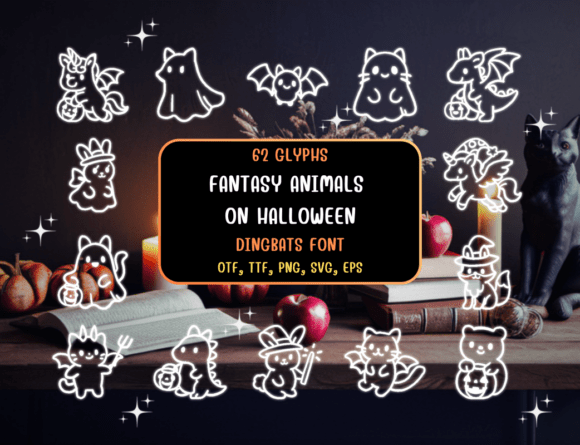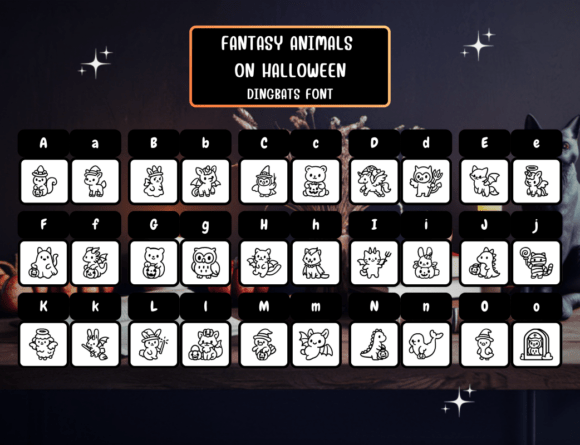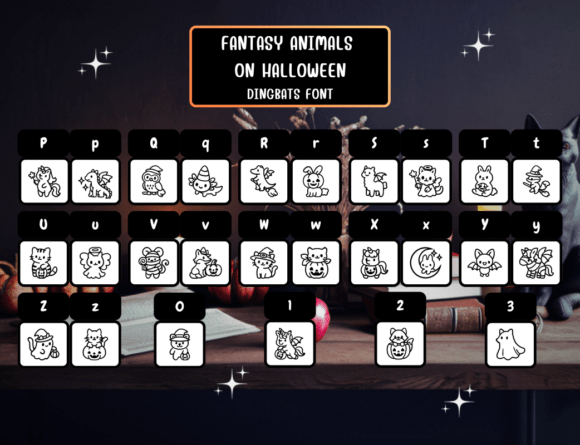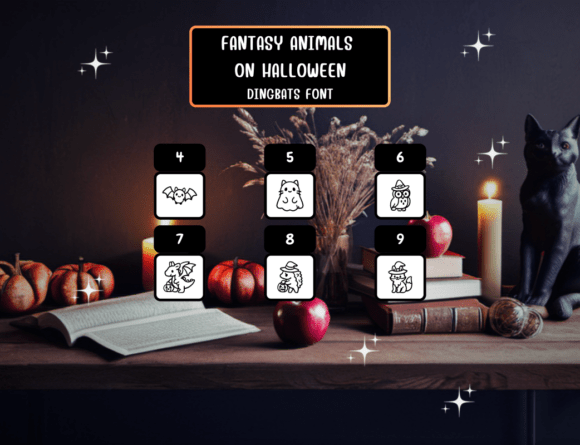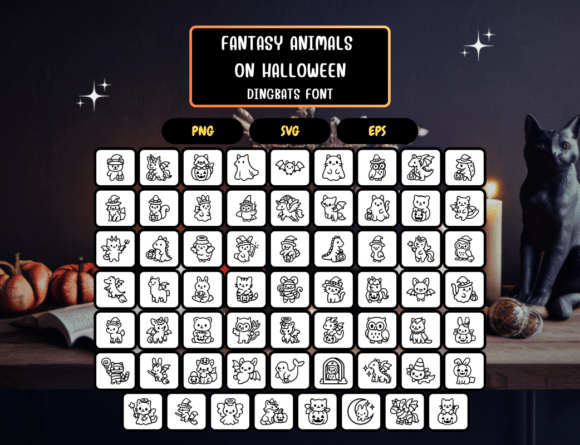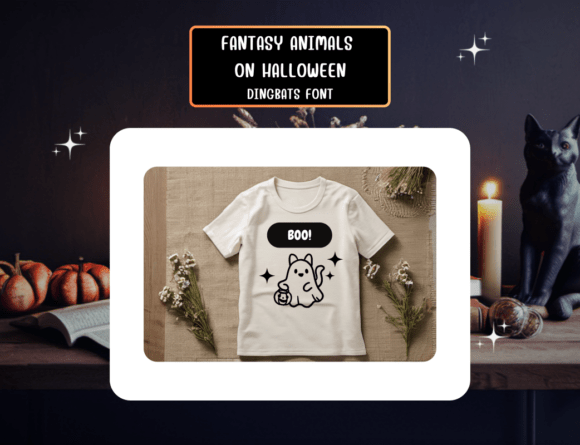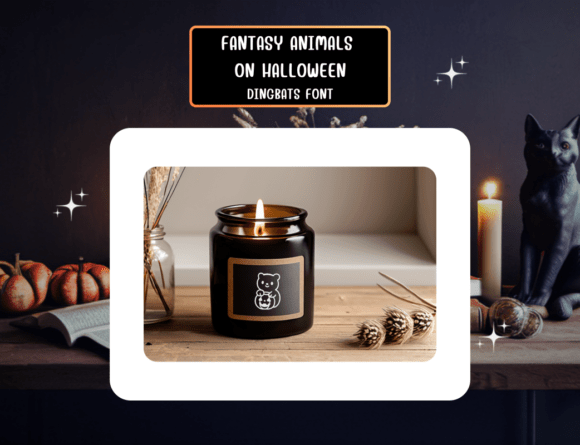
Getting Creative on a Spooky Night
Do you ever find yourself stuck in a creative rut, searching for that perfect spark to get your imagination running wild? For me, it’s often on a crisp autumn evening, surrounded by twinkling lights and the faint scent of pumpkin spice. It’s the perfect time to let my creativity run free, and that’s exactly when I stumbled upon the enchanting Fantasy Animals on Halloween Font.
This charming Dingbats font is more than just a novelty – it’s a treasure trove of hand-drawn illustrations waiting to be unleashed on your next creative project. From labels to packaging, stickers to greeting cards, this font is the perfect companion for designers looking to add a touch of whimsy and wonder to their work.
Fantasy Animals on Halloween Font Key Features
- Unique Characteristics: Includes 30 fantasy animal designs, 5 spooky Halloween-themed backgrounds, and 10 creepy Halloween-themed ornaments
- Font Style: Hand-drawn, whimsical, and playful, perfect for Halloween-themed designs, invitations, and decorations
- Characters and Glyphs: Includes uppercase and lowercase letters, numbers, punctuation, and special characters, as well as the fantasy animal designs and Halloween-themed elements
Designer Review: Fantasy Animals on Halloween Font
At first glance, the Fantasy Animals on Halloween Font caught my eye with its playful and whimsical feel. ✨ The use of bold lines, intricate details, and varied animal designs create a sense of magic and wonder. The font’s application in holiday-related content would be perfect, from invitations to decorations.
However, upon closer inspection, I noticed a few areas for improvement. ⚠️ The font’s consistency across different character sets is inconsistent, with some letters appearing more polished than others. Additionally, the font’s file size is relatively large, which could be a concern for designers working with limited resources.
The font’s character set is also limited, with a lack of special characters and punctuation marks. This could be a hindrance for designers who require a more comprehensive character set. A few additional weights and styles would also be beneficial for added flexibility.
- Works well for holiday-themed content
- Playful and whimsical feel
- Varied animal designs
Overall, while the Fantasy Animals on Halloween Font shows promise, it requires refinement to reach its full potential.
This font is ideal for creating spooky, whimsical, or fantastical designs for Halloween-themed projects, such as: